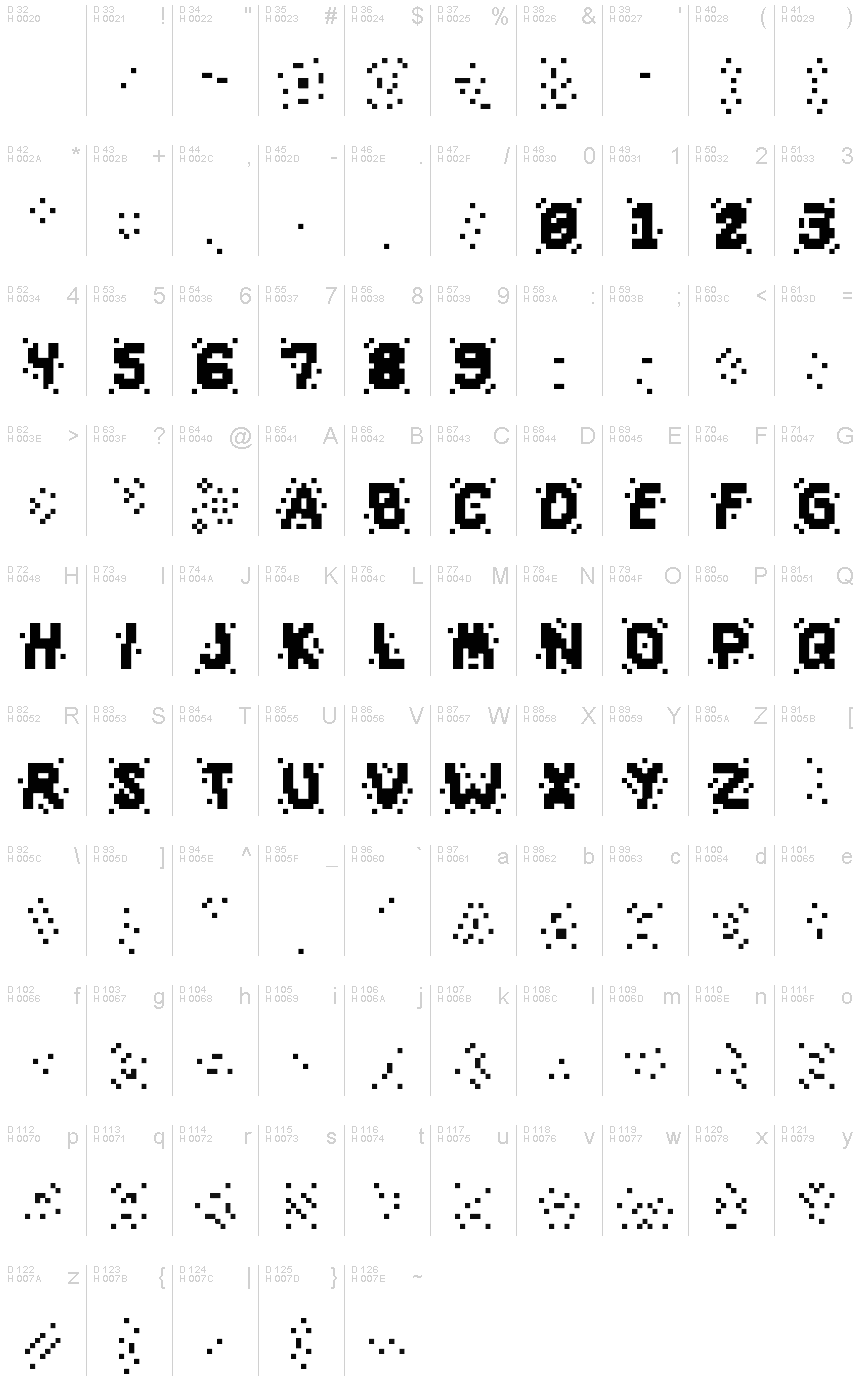
SlapAndCrumblyAl
A font specifically made for use in Adventure Game Studios. Best viewed at 12 pixel size. Alias font is to be layered over the base font.